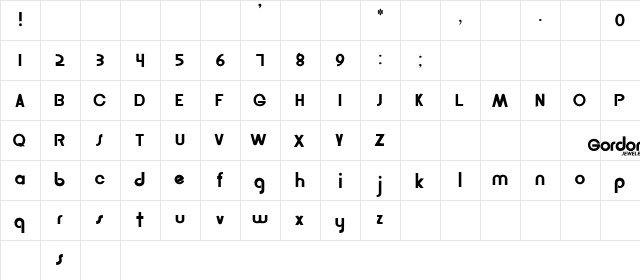
Gordon Regular
Design Context for Gordon Typeface
Gordon is a composed and adaptable typeface that performs quietly and consistently across a wide range of design contexts.